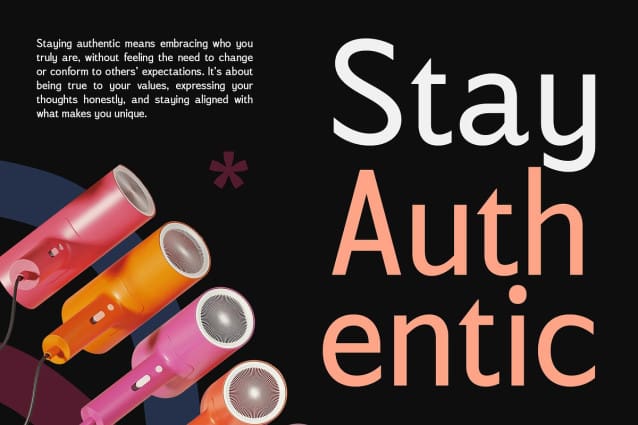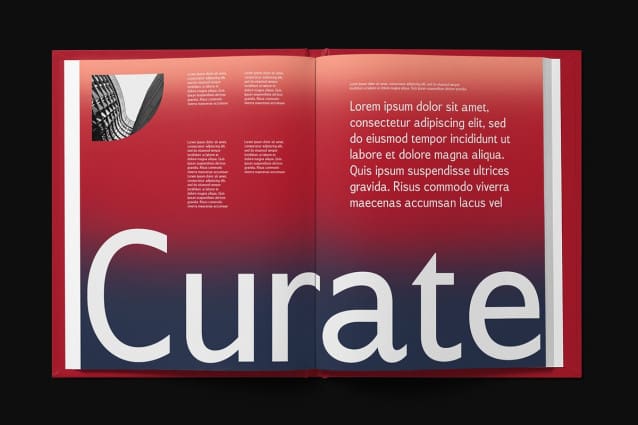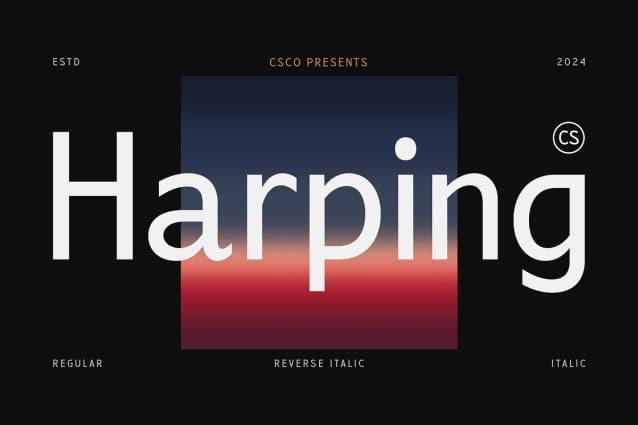
CS Harping Font
CS Harping Font is a modern sans serif font that features geometric, clean, and contemporary shapes designed to convey a professional and elegant impression. Its sharp lines and balanced proportions not only create an aesthetic appeal but also offer a high level of readability, making it an excellent choice for a variety of applications, including business documents, presentations, and branding initiatives.
Professional Readability for Every Project The readability of CS Harping ensures that your message is communicated clearly and effectively, which is essential for professional settings. Whether you’re crafting a detailed report or a sleek presentation, this font allows your content to shine while maintaining a polished appearance. Its well-structured letterforms guide the reader’s eye, facilitating comprehension and engagement, which is vital in any business communication.
Minimalist Design with Maximum Impact CS Harping embodies a minimalist feel, emphasizing simplicity without sacrificing style. Its geometric forms bring a modern flair to traditional typography, creating a striking contrast that captures attention. This font is perfect for companies looking to cultivate a modern and trustworthy image, as its clean lines project reliability and sophistication. The minimalist approach enhances your brand identity, making it memorable and approachable.